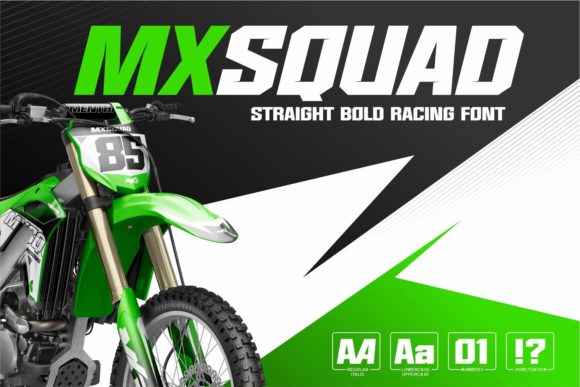
Welcome to the realm of Mxsquad Font, the ultimate display font that exudes an aura of boldness and athleticism. Crafted with precision by Blacksheep id, this captivating font family isn't just a collection of letters - it's an expression of modern charisma.
With its thick, blocky letters, Mxsquad Font demands attention. It commands presence wherever it appears, bringing a sense of vitality and energy to your designs. Whether you're creating posters, social media graphics, or eye-catching headlines, this font is the perfect choice to make a statement.
But wait, there's more to Mxsquad Font than meets the eye. It's a font that isn't just visually striking - it's emotionally evocative. Its bold lines and geometric shapes create a sense of power and confidence, imbuing your designs with a sense of authority and determination.
Imagine your resume, adorned with the bold strokes of Mxsquad Font. It instantly stands out from the crowd, exuding an aura of professionalism and capability. Or picture your social media posts, captivating audiences with their vibrant, energetic typography. Mxsquad Font isn't just a font - it's a tool for expression, a way to make your voice heard in a world of noise.
So why settle for ordinary when you can embrace the extraordinary? Join the ranks of those who dare to be different, who choose Mxsquad Font as their weapon of choice. Let its bold lines and confident curves elevate your designs, capturing hearts and minds with every stroke.